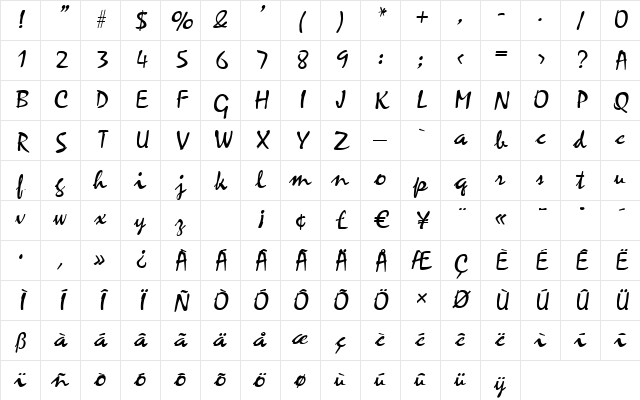
Script-M730 Regular
Design Context for Script-M730
Script-M730 flows with the natural rhythm of handwritten lettering, making it ideal for designs that call for warmth and personal expression.
Font Pairing: Combine Script-M730 with a simple geometric sans for maximum contrast - the tension between flowing curves and clean structure is a classic typographic pairing.
Pro Tip: Use Script-M730 for short runs of text - names, titles, or taglines. Extended body copy in script faces tires the eye quickly.